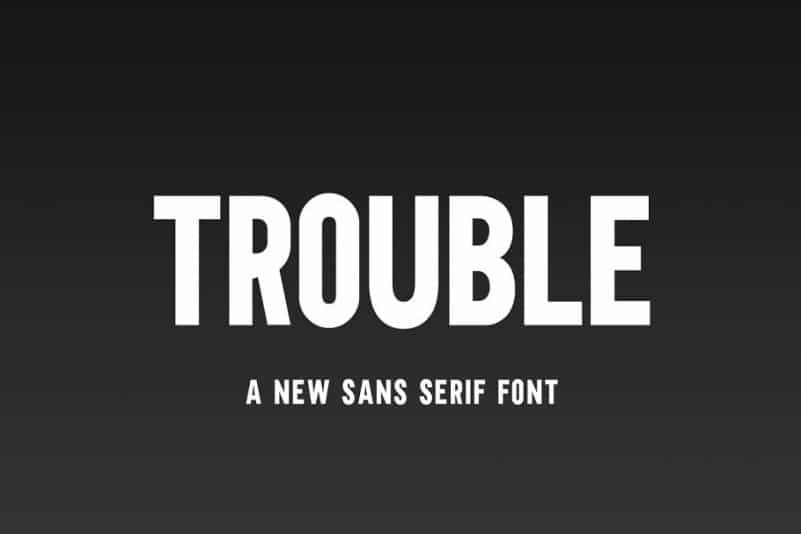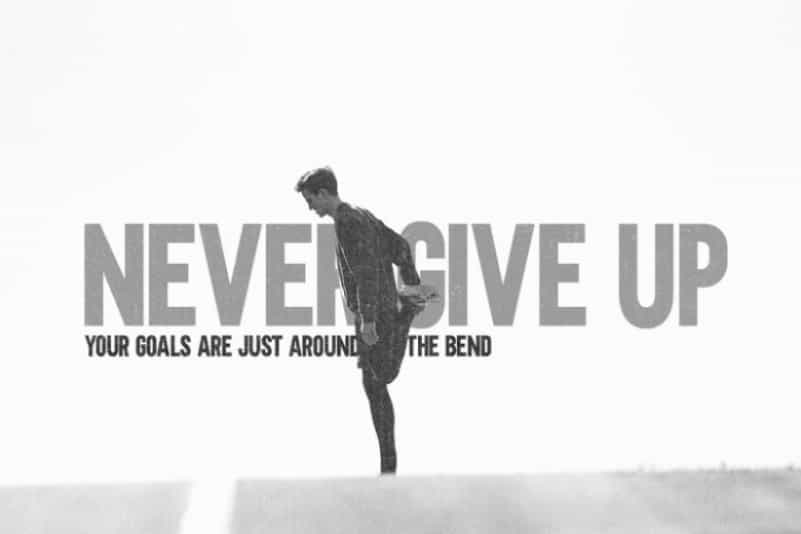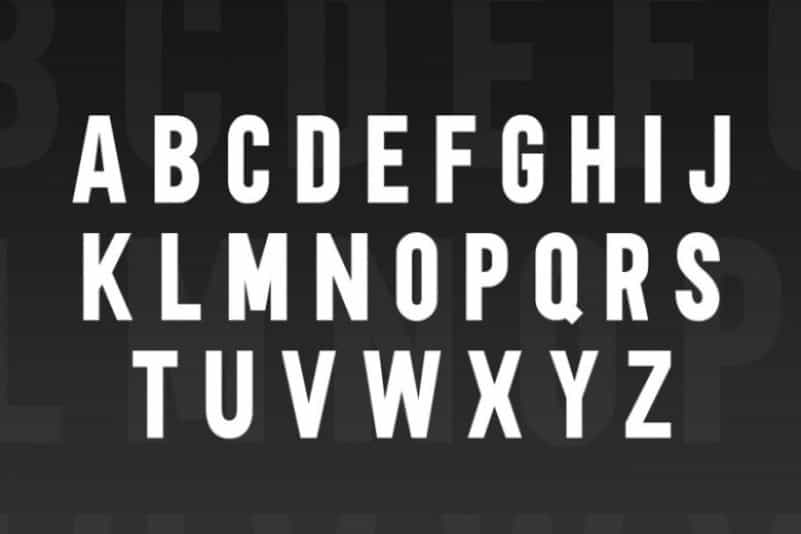
Trouble Font is a first sans serif font that makes a strong and beautiful headline, it’s ideal for posters for movies or advertising, advertising or editorials – Title is perfect for such dramatic headlines with character branding. Created by Salt & Pepper Designs. . Trouble Sans Serif Font from Salt and Pepper Designs will only get the best! Classing up your designs has never been easier when you are standing up to their beautiful script!